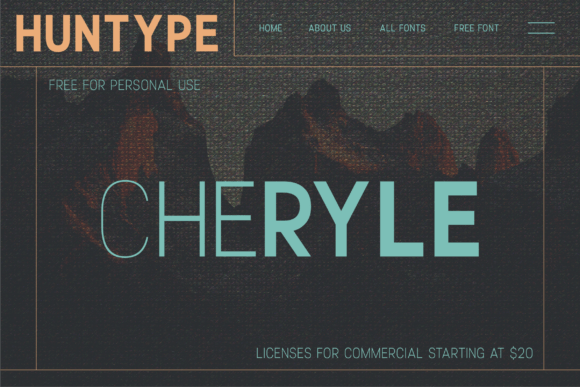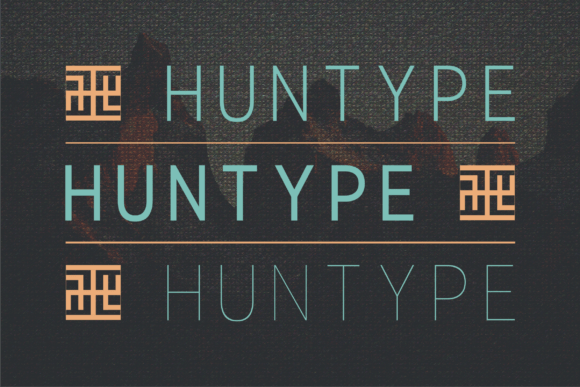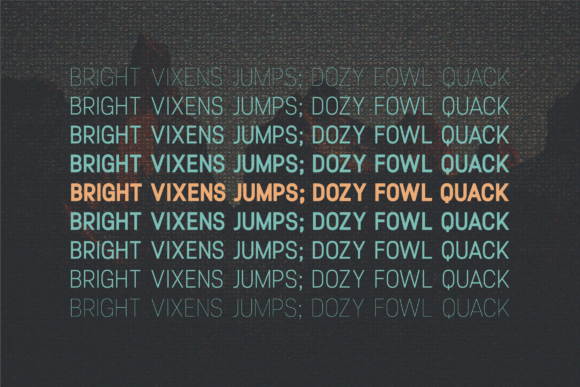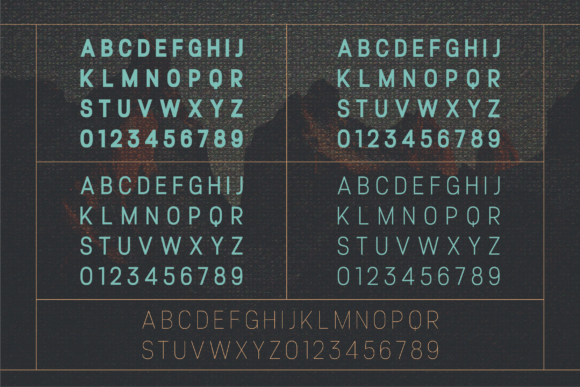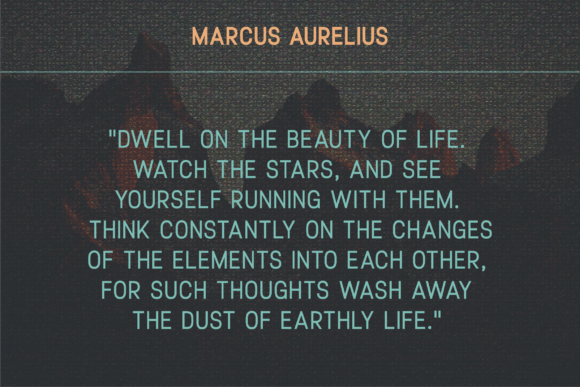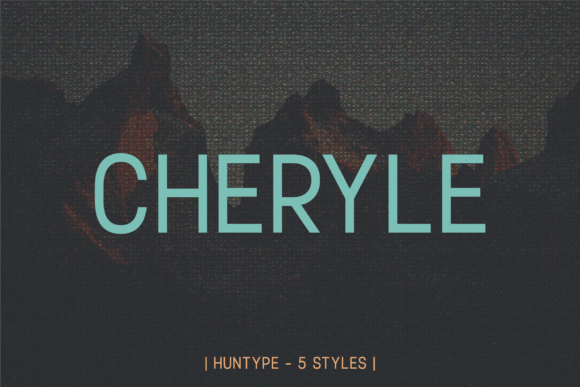
Introducing Cheryle Font: A Modern and Versatile Typeface for Every Design Need
In the world of typography, a font can make all the difference in the success of a design project. A well-crafted font can elevate a brand’s identity, convey its message, and leave a lasting impression on its audience. Meet Cheryle, a modern and versatile font family that is poised to become a go-to choice for designers and crafters alike. Cheryle is a masterful blend of clean geometric forms and subtle sophistication, making it an ideal choice for a wide range of applications.
A Harmonious Balance of Sharp Lines and Gentle Curves
Cheryle’s design is characterized by a harmonious balance of sharp lines and gentle curves, resulting in a font family that exudes both modernity and elegance. Its precise letterforms and contemporary aesthetic make it a standout in the world of typography. Whether you’re designing a logo, brochure, or website, Cheryle’s adaptable style ensures that it will seamlessly integrate into your project, adding a touch of sophistication and refinement.
A Family of Five Fonts: Catering to Every Design Need
Cheryle is not just a single font, but a family of five fonts, each with its own unique characteristics and uses. The family includes:
- Cheryle Black: Bold and impactful, perfect for commanding headlines that demand attention.
- Cheryle Bold: Strong and persuasive, ideal for key messages that need to make a statement.
- Cheryle Regular: A balanced and versatile mid-weight, suitable for diverse applications, from body text to captions.
- Cheryle Light: Subtle and elegant, perfect for refined designs that require a touch of sophistication.
- Cheryle Thin: Delicate and sophisticated, ideal for adding a minimalist touch to your designs.
Cheryle Black: Making a Statement with Bold Headlines
Cheryle Black is the boldest and most impactful font in the family, designed to grab attention and make a statement. Its strong, commanding presence makes it perfect for headlines, titles, and any other application where you want to leave a lasting impression. Whether you’re designing a poster, billboard, or website header, Cheryle Black is sure to deliver.
Cheryle Bold: Conveying Strength and Persuasion
Cheryle Bold is a strong and persuasive font, ideal for key messages that need to resonate with your audience. Its confident and assertive presence makes it perfect for use in advertising, marketing materials, and any other application where you want to convey a sense of authority and expertise.
Cheryle Regular: The Ultimate Versatility Font
Cheryle Regular is the mid-weight font in the family, offering a perfect balance of legibility and style. Its versatility makes it suitable for a wide range of applications, from body text to captions, and it’s an excellent choice for designers who want a font that can adapt to different contexts.
Cheryle Light and Cheryle Thin: Adding Elegance and Sophistication
Cheryle Light and Cheryle Thin are the elegant and sophisticated members of the font family. They are perfect for refined designs that require a touch of subtlety and nuance. Whether you’re designing a luxury brand identity, a fashion magazine, or a high-end product catalog, these fonts will add a level of sophistication and refinement that’s hard to match.
Why Choose Cheryle Font?
So, why should you choose Cheryle font for your next design project? Here are just a few compelling reasons:
- Versatility: Cheryle’s range of five fonts ensures that you can use it for a wide range of applications, from headlines to body text.
- Legibility: Cheryle’s precise letterforms and clean design make it highly legible, even at small sizes.
- Elegance: Cheryle’s subtle sophistication and gentle curves add an touch of elegance to any design.
- Modernity: Cheryle’s contemporary aesthetic ensures that your designs will look modern and fresh.
In conclusion, Cheryle font is an exceptional addition to any designer’s toolkit. Its versatility, legibility, elegance, and modernity make it an ideal choice for a wide range of applications. Whether you’re designing a brand identity, website, or marketing materials, Cheryle font is sure to deliver. So why wait? Give Cheryle a try today and experience the difference for yourself.